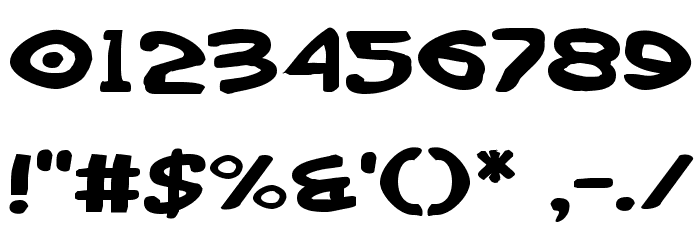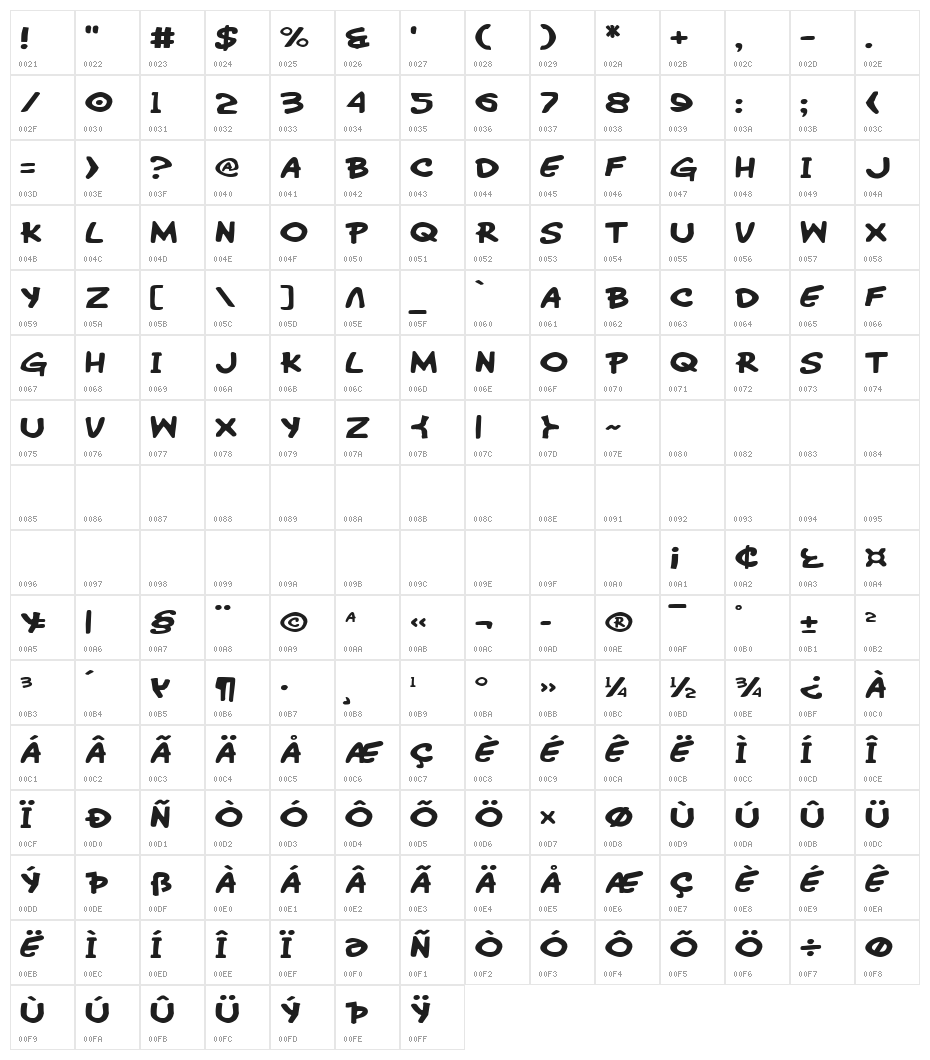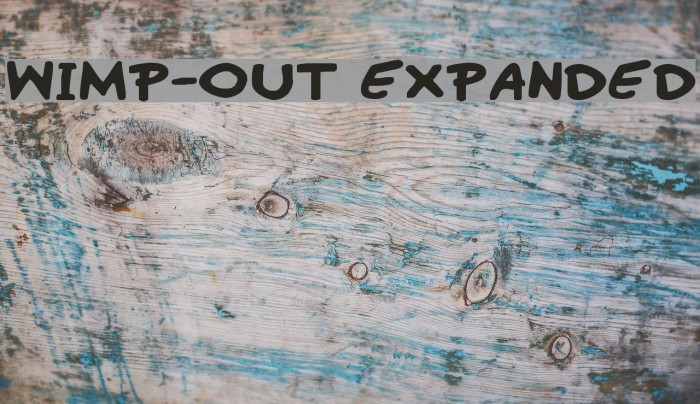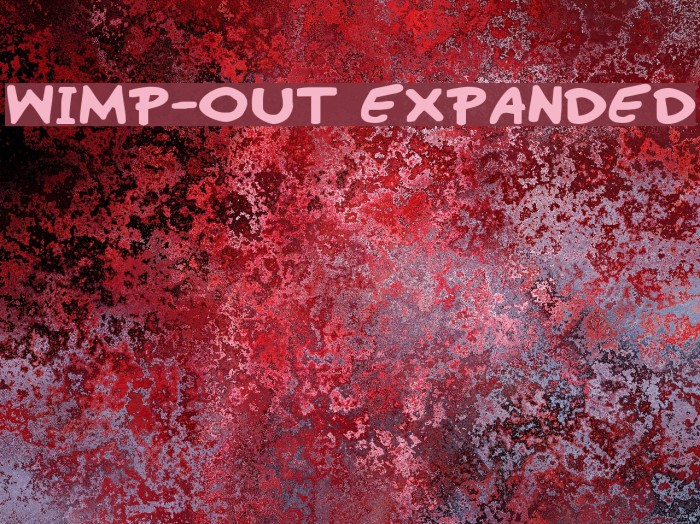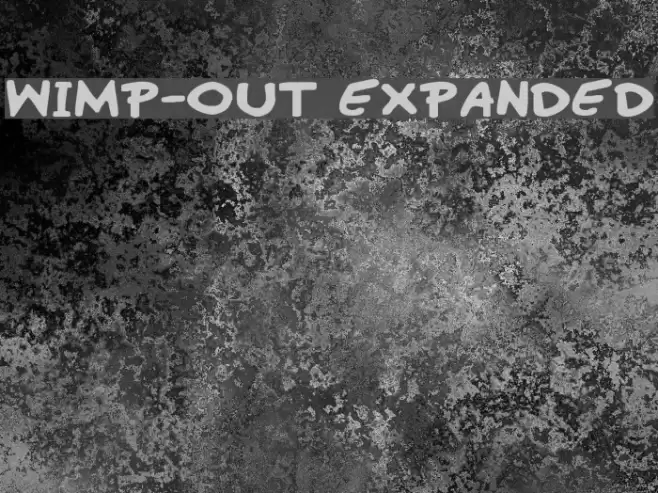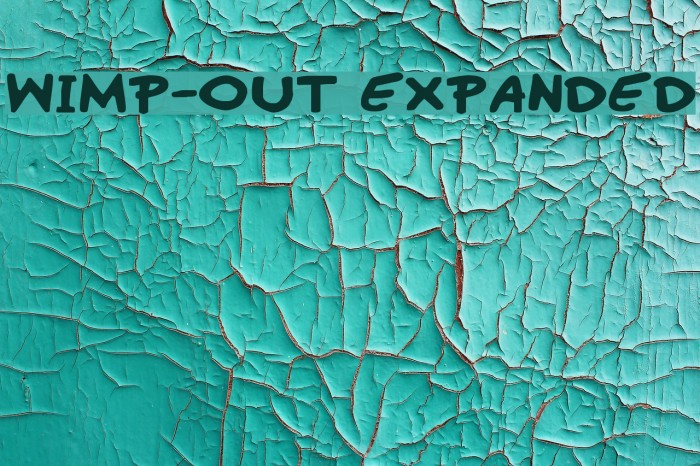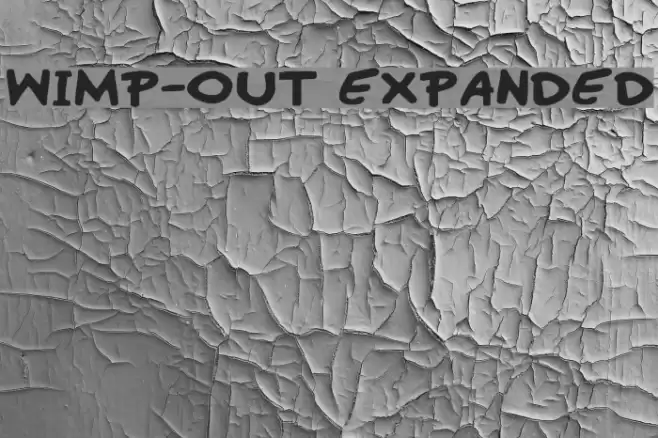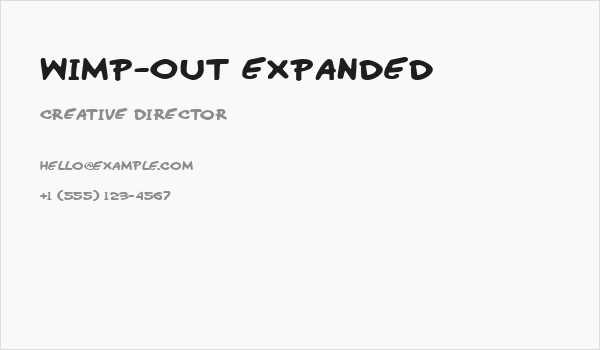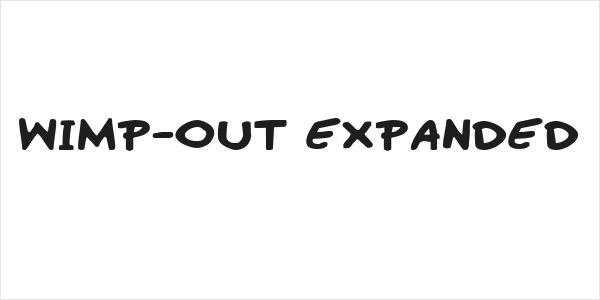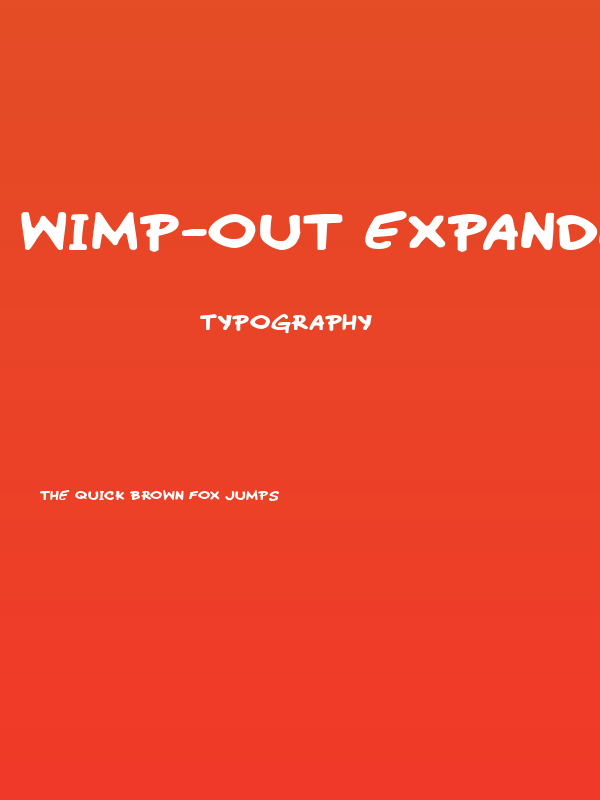
Wimp-Out Expanded Font
Wimp-Out Expanded Description
This playful and bold font features a hand-drawn aesthetic with rounded edges and a slightly irregular baseline, giving it a whimsical and informal appearance. The characters are thick and substantial, with a consistent stroke width that contributes to its bold presence. The font's style is reminiscent of comic or cartoon lettering, making it ideal for projects that require a fun and approachable look. The spacing between characters is normal, ensuring readability while maintaining its playful charm. This font is well-suited for creative and casual applications, such as children's books, posters, or branding that aims to convey a sense of fun and creativity.
| Overall Style | Playful, Informal, Comic |
| Proposed Projects | Children's books, playful posters, creative branding, comic strips. |